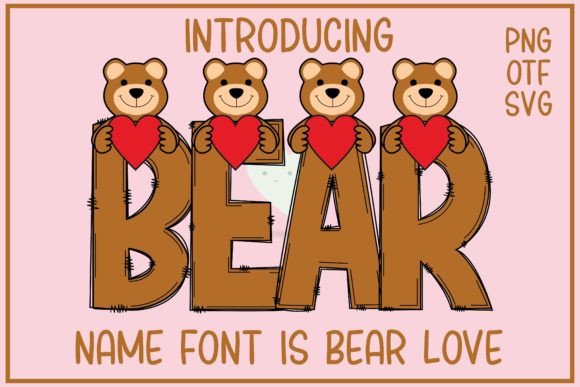
Unleash the Enchantment of Bear Love Font: A Symphony of Colors for Your Creative Expressions
Welcome to the realm of Bear Love Font, a captivating and playful display font that will ignite your imagination and bring your creative visions to life. As you delve into its vibrant hues and whimsical characters, prepare to be mesmerized by the endless design possibilities it presents.
Journey into a world of captivating creations, where Bear Love Font dances across your screen, leaving a trail of colorful elegance in its wake. Each letter, meticulously designed to exude charm and individuality, awaits your touch to bring forth enchanting designs that will leave an indelible mark on your audience.
Express Your Love with Every Stroke
With its delightful color palette, Bear Love Font becomes the perfect choice for expressing your heartfelt emotions. Whether you're crafting love letters, heartfelt messages, or heartfelt greeting cards, this font will add a touch of warmth and charm to your words, making them resonate with your loved ones on a deeper level.
Capture the Playful Spirit
Bear Love Font possesses an irresistible charm that will instantly uplift your mood and bring a smile to your face. Its playful and whimsical nature makes it ideal for creating designs that exude a sense of joy and lightheartedness. Add a touch of fun to your social media posts, blog entries, and invitations, and watch as they radiate positivity and cheer.
Make a Statement with Unique Designs
In a world saturated with uniformity, Bear Love Font empowers you to make a statement with your unique designs. Its remarkable color combinations and captivating letterforms will help you create designs that stand out from the crowd. Whether you're designing posters, flyers, or website banners, this font will ensure your creations demand attention and leave a lasting impression.
Ignite Your Imagination
With Bear Love Font as your creative companion, let your imagination run wild and explore uncharted territories of design. Its versatility knows no bounds, allowing you to experiment with various styles and genres. From whimsical illustrations to eye-catching logos and enchanting branding elements, this font is your gateway to a world where creativity thrives.